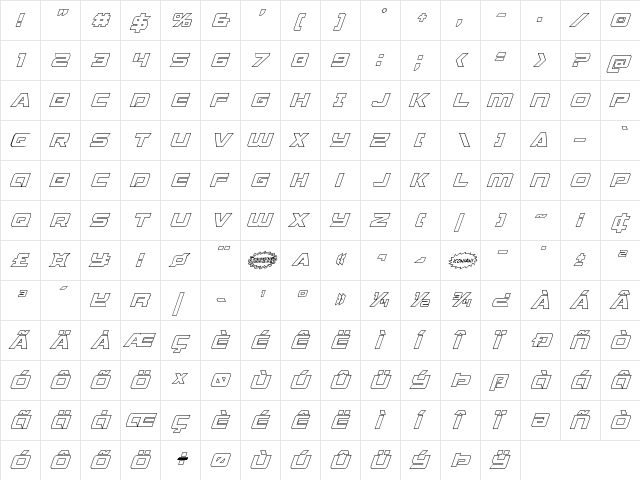
Starduster Shadow Italic Italic
Design Context for Starduster Shadow Italic Typeface
Starduster Shadow Italic is built around its visual character rather than neutral utility — its distinctive forms are designed to make an impression at display sizes. The slanted form adds forward momentum and visual energy.
Font Pairing: Pair with a clean neutral sans-serif for body copy to let Starduster Shadow Italic's character lead without overwhelming the composition.
Pro Tip: Use Starduster Shadow Italic exclusively at display sizes — it was designed to be seen, not read at length. Let a neutral companion handle body copy.